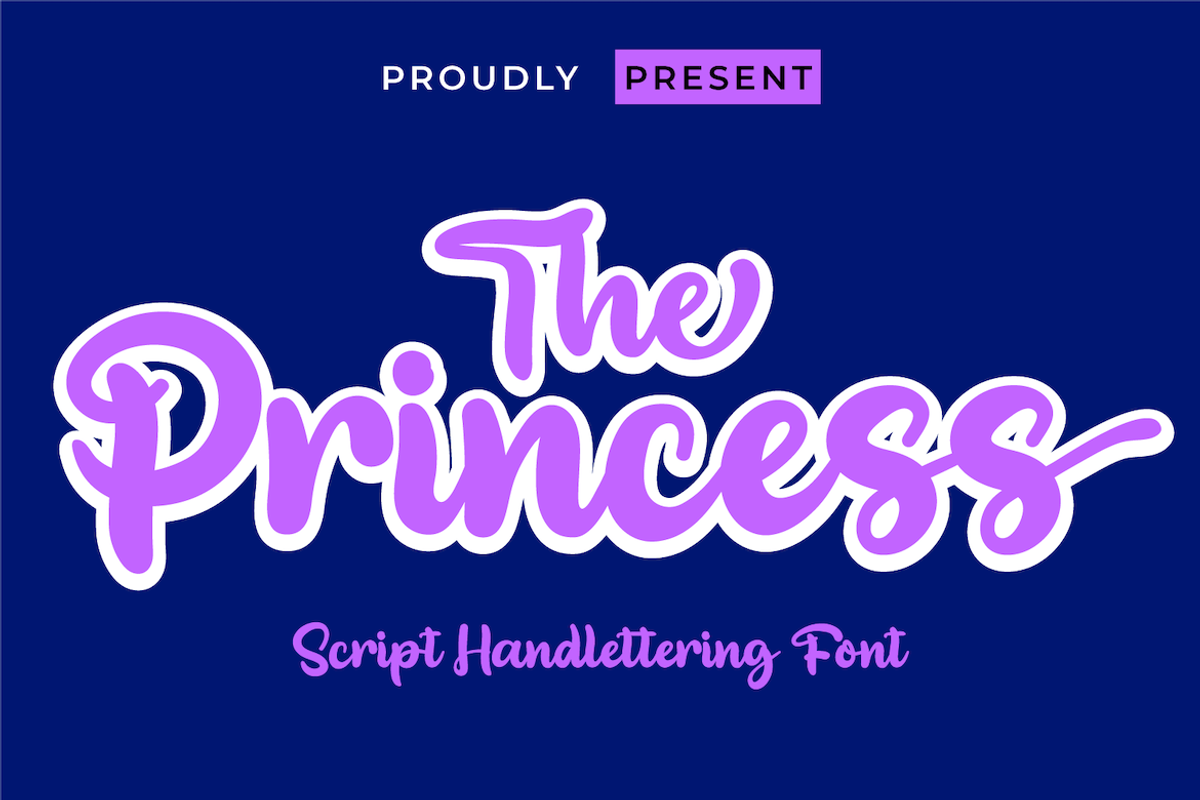
Step into a world of grace and fairy-tale beauty with The Princess Font Free Download — a delicate and whimsical script font made for magical moments. With its flowing strokes and elegant curves, this font is perfect for wedding invitations, baby showers, boutique logos, love letters, and anything that needs a royal touch.
The Princess captures the heart with its hand-lettered charm and sophisticated flair. It includes uppercase and lowercase letters, numbers, punctuation, and multilingual support, making it a versatile choice for charming, high-end designs.